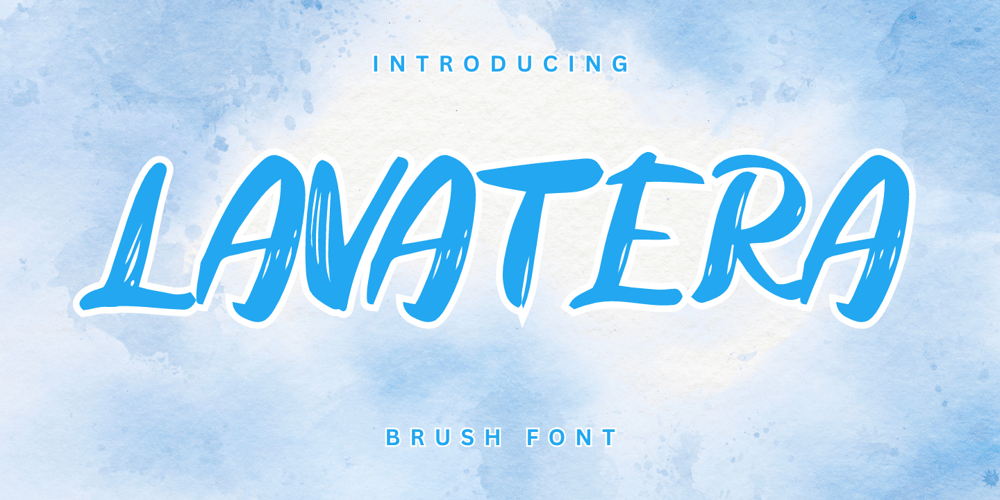
Lavatera Font Family was designed by Stephanus Prabowo and published by Andrey Font Design. Lavatera contains 1 styles and family package options. Lavatera is a brush font with standard uppercase and lowercase characters, numbers, punctuation, ligature, and multilingual support. This typeface captures the essence of masculinity with its strong lines and bold strokes. Its versatility and flexibility make it suitable for various design styles, and its textured feel adds depth and character to any project.